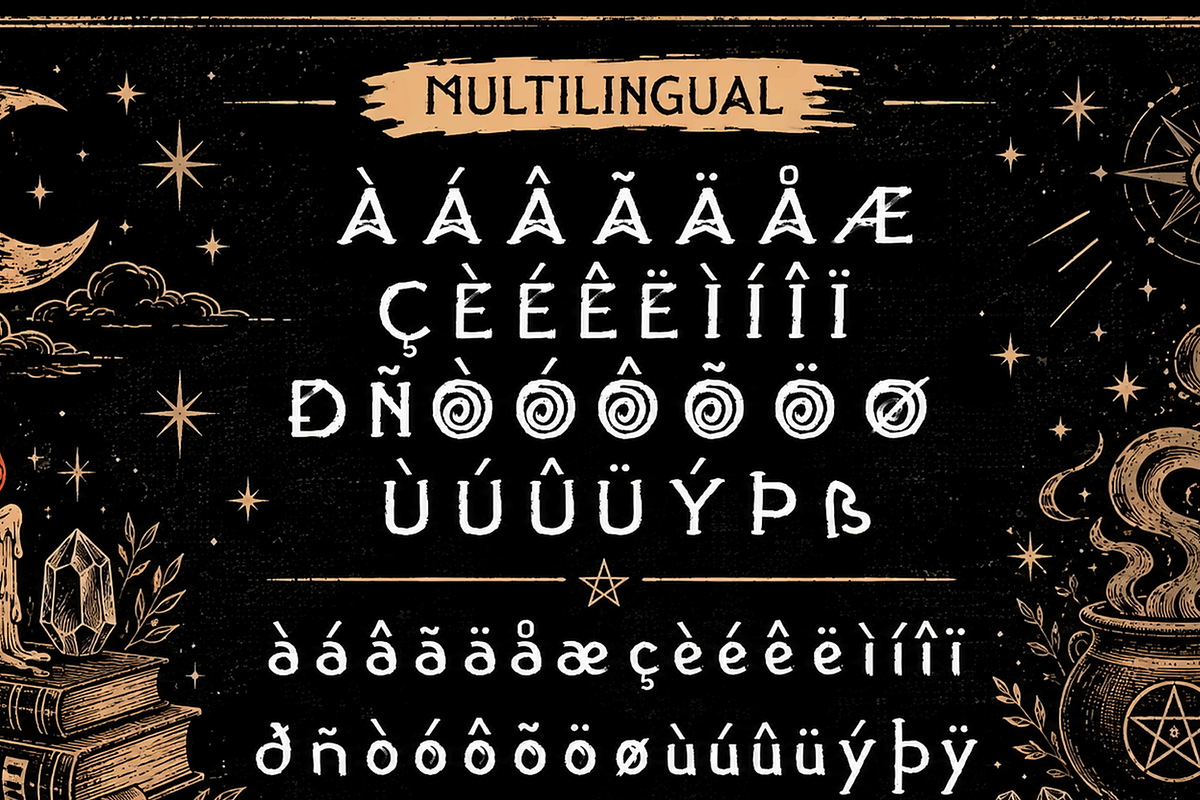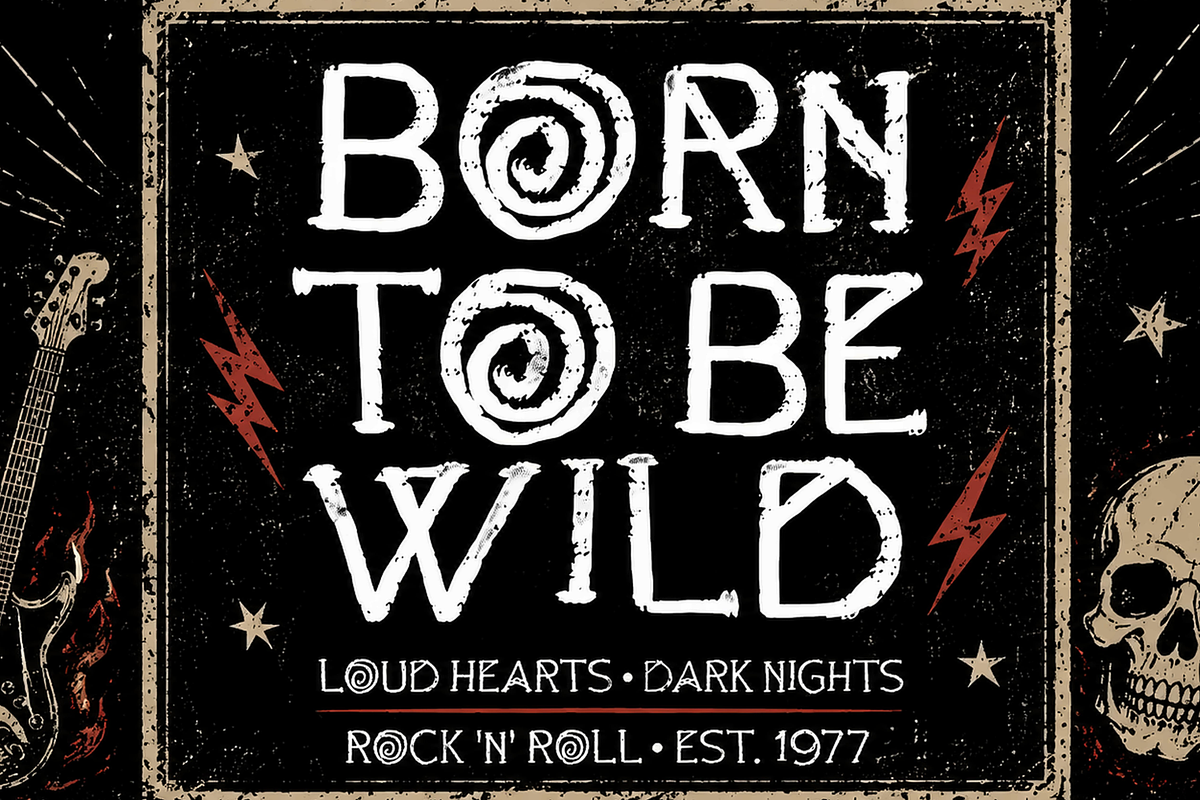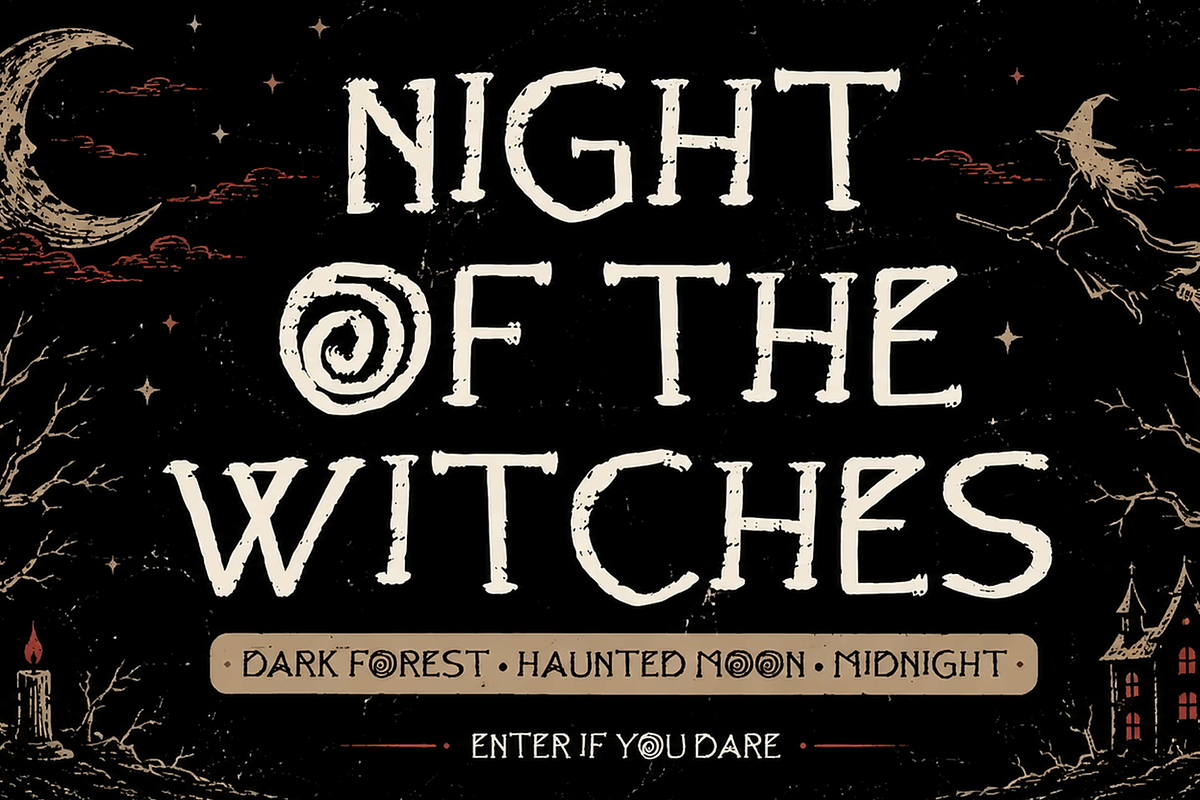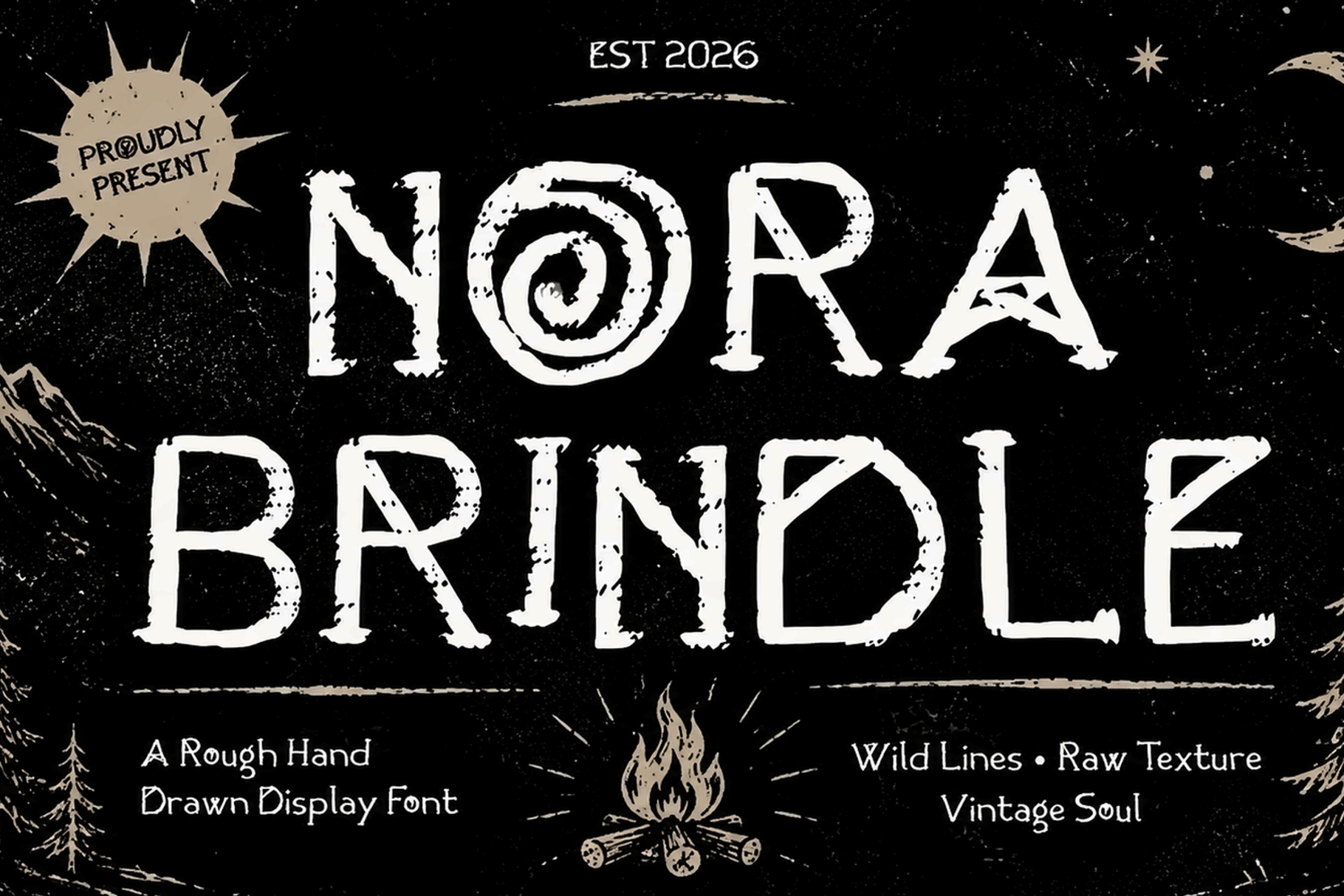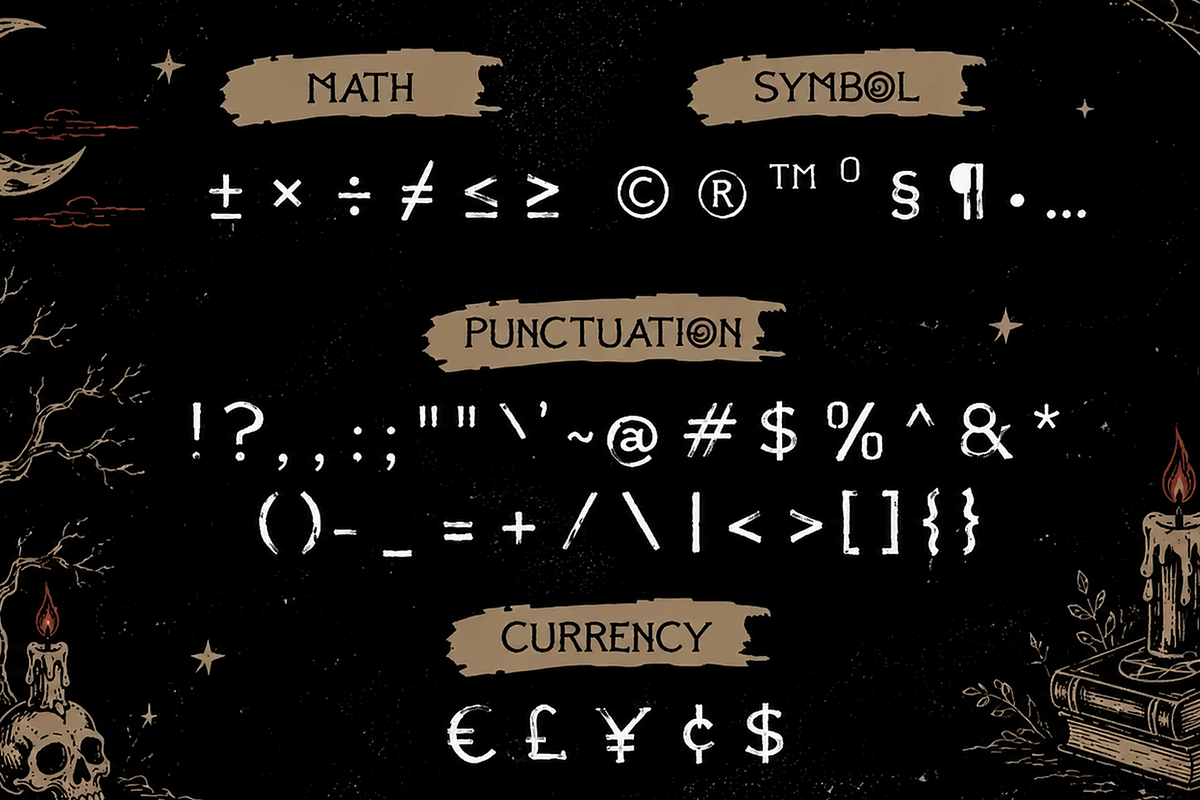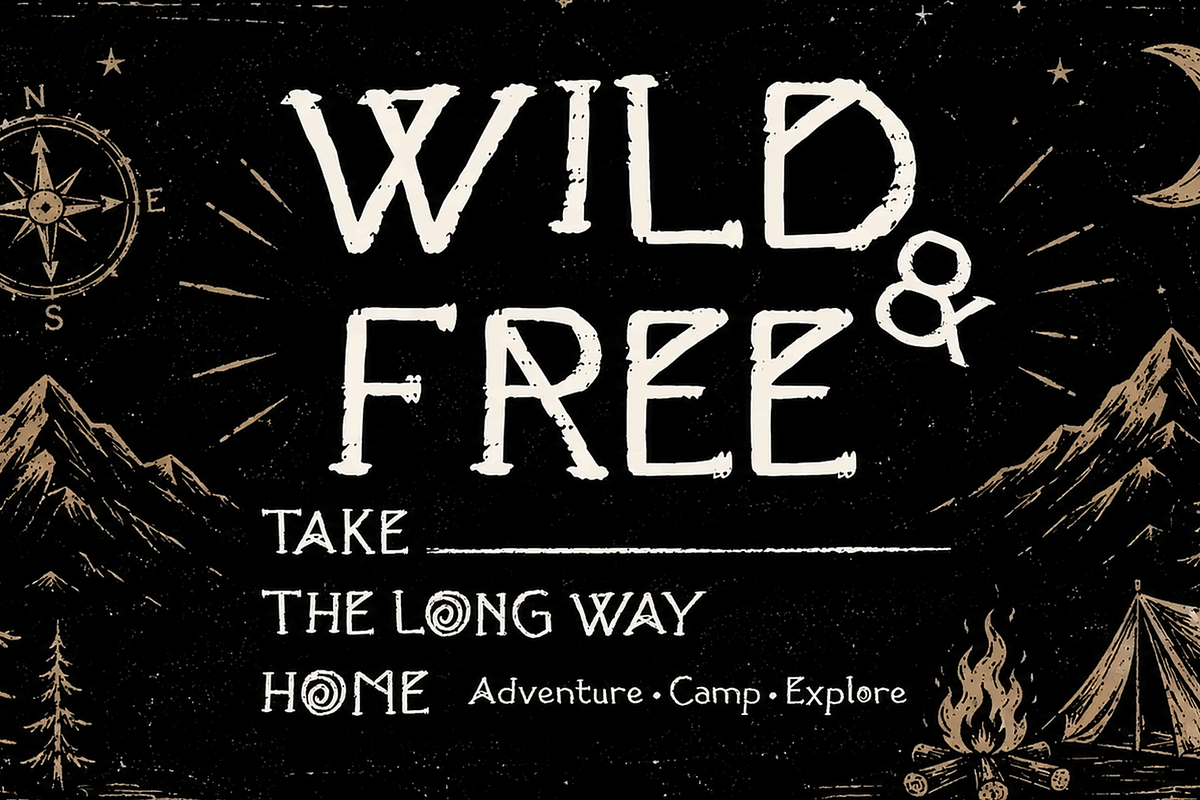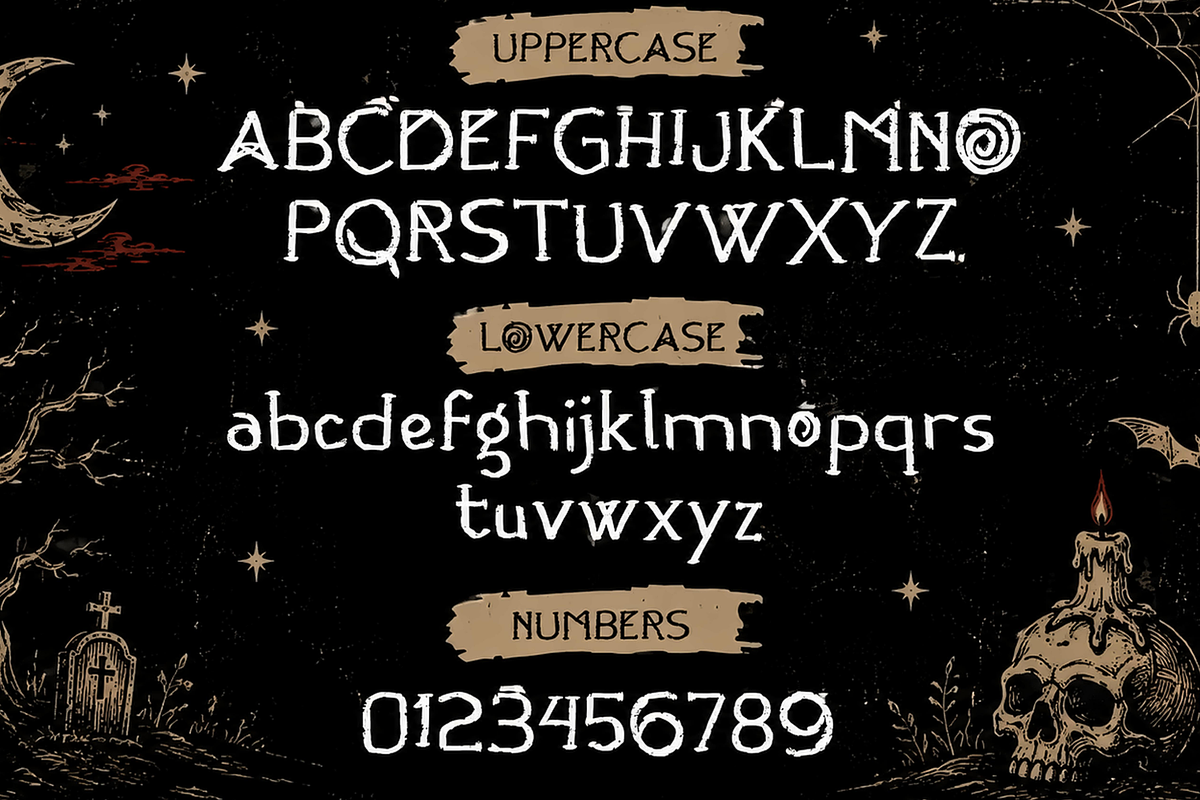
Nora Brindle Distressed Display Font
Nora Brindle is a bold distressed display font with a rough hand-drawn character, vintage texture, and a distinctive alternative aesthetic. Its imperfect strokes, worn edges, and organic letterforms bring a raw handmade feel to every word.
Perfect for vintage posters, retro branding, apparel, outdoor adventures, camping designs, rock and punk artwork, Halloween graphics, horror posters, album covers, logos, labels, stickers, and editorial headlines.
Nora Brindle is designed to make a strong visual statement while maintaining an authentic handcrafted appearance. The font includes uppercase, lowercase, numbers, punctuation, symbols, currency characters, and multilingual glyphs, making it versatile for both creative and commercial projects.
Pair the Regular and Slant styles to create dynamic typography with a rugged, rebellious, vintage-inspired personality.